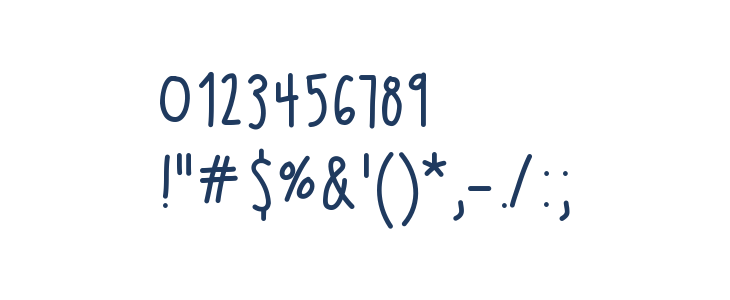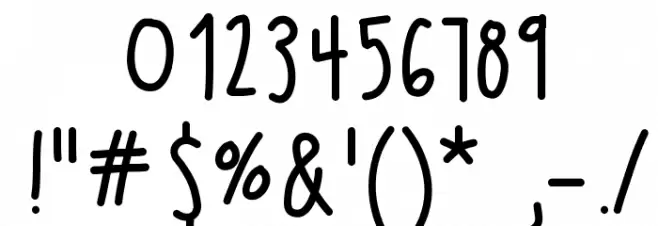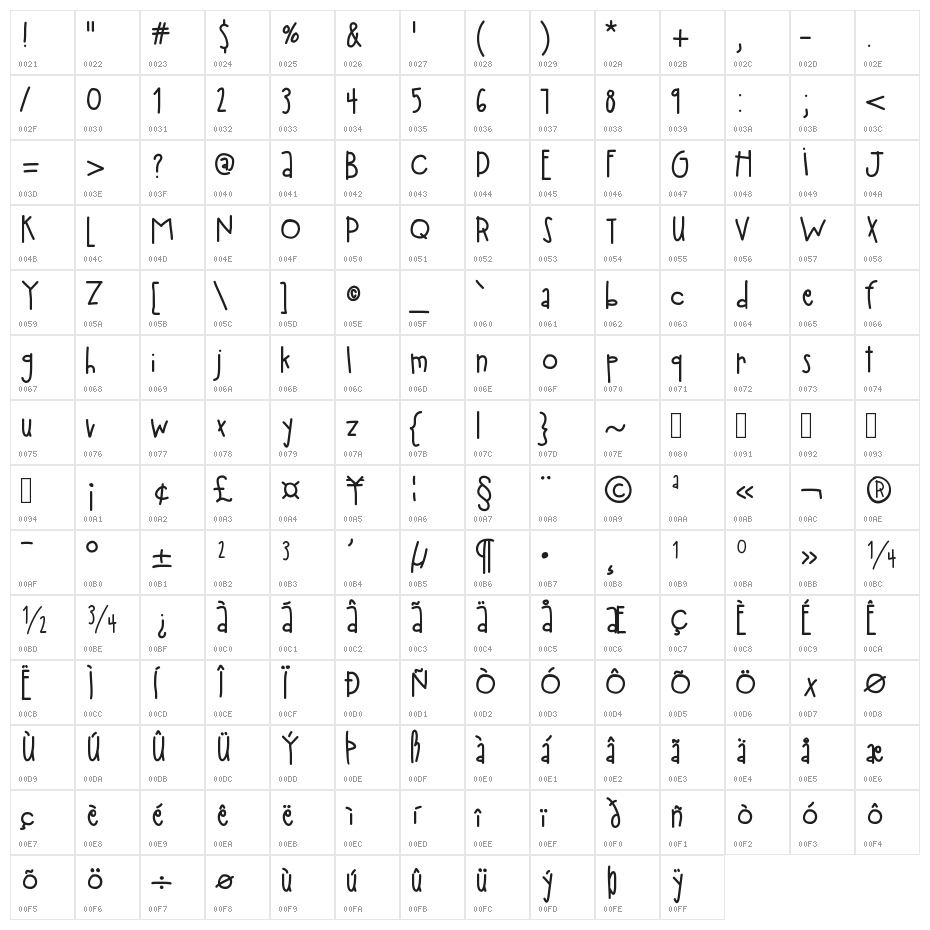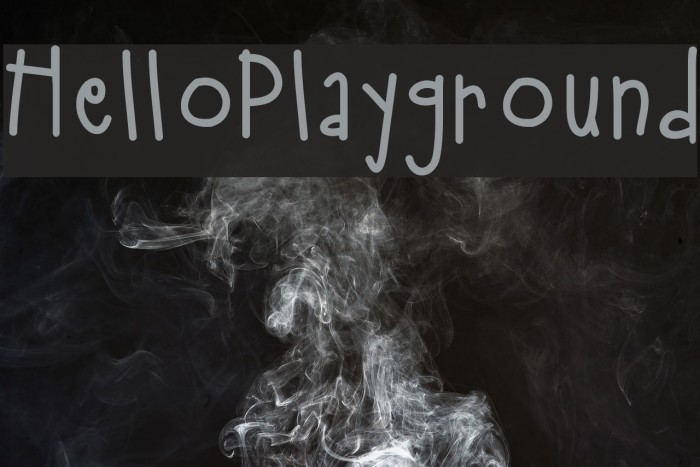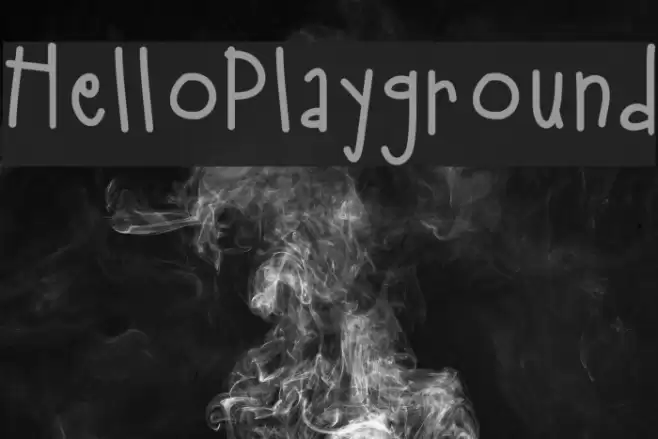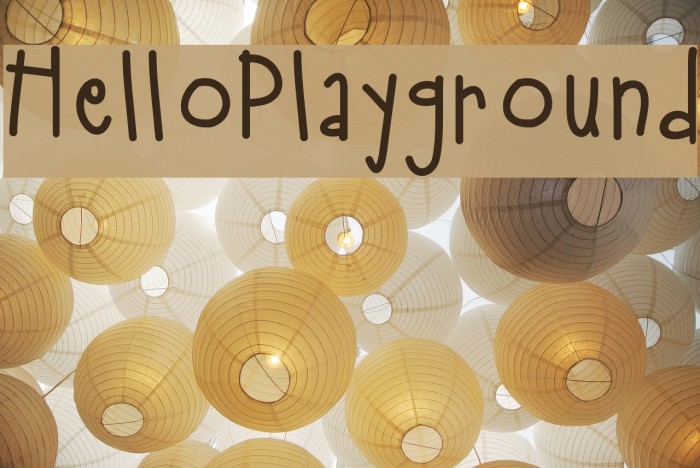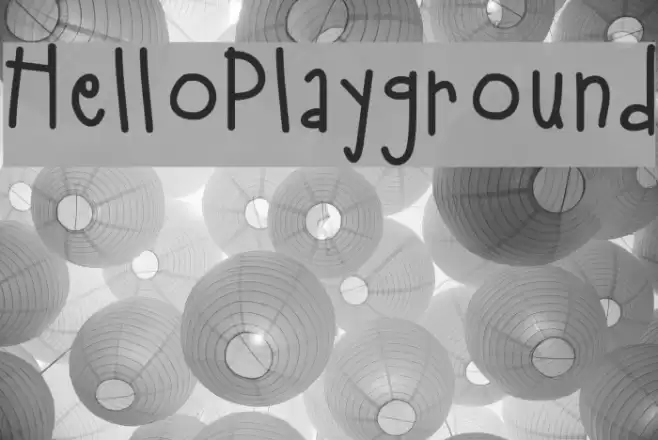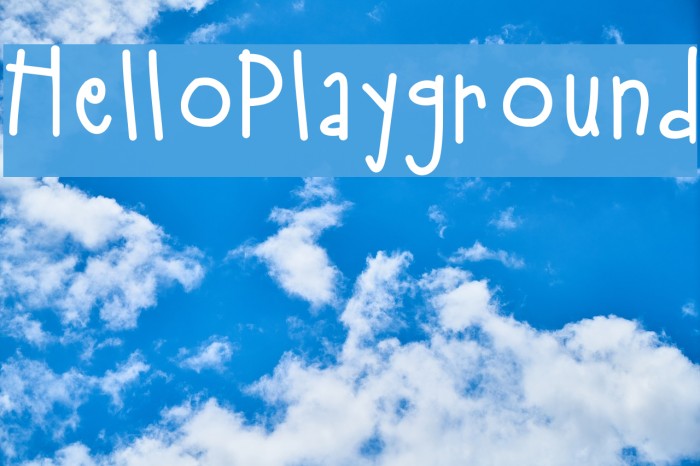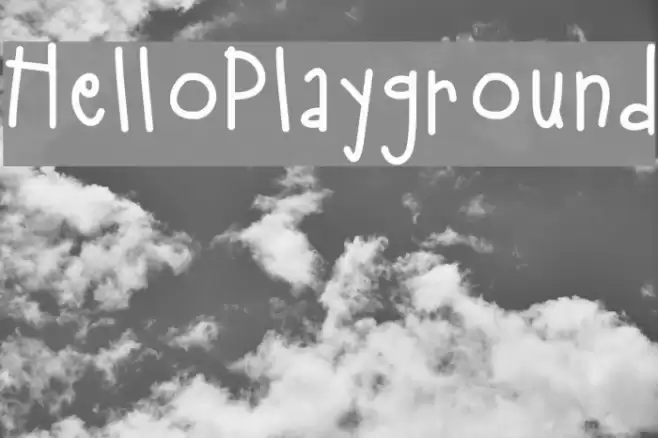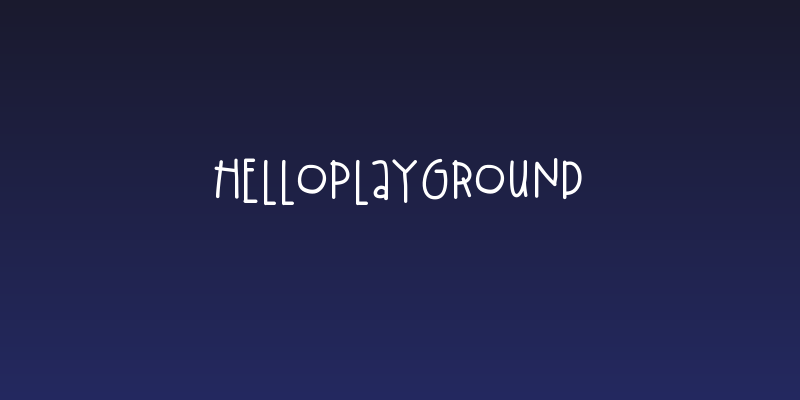
HelloPlayground Font
HelloPlayground Description
This playful and whimsical font features a handwritten style with irregular, slightly wavy lines that give it a casual and friendly appearance. The characters are tall and narrow, with a consistent stroke width that maintains readability while adding a touch of personality. The uppercase and lowercase letters are distinct yet harmoniously designed, with rounded edges and a slight tilt that enhances the informal feel. Numbers and special characters are crafted with the same playful spirit, making this font versatile for various creative projects.
| Use Case | Headlines, Logos, Informal text |
| Proposed Projects | Ideal for children's books, greeting cards, playful branding, and social media graphics. |